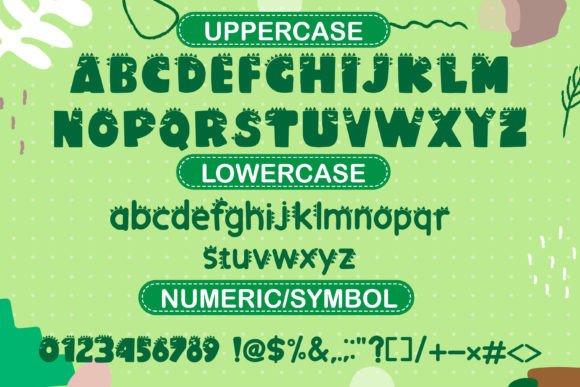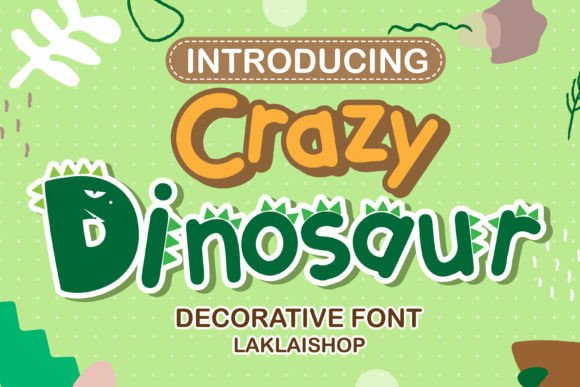
Crazy Dinosaur Font: Unleash Your Creativity with a Roar!
Are you ready to take your design projects to the next level with a dash of prehistoric fun? Look no further than the Crazy Dinosaur Font! This adventure-themed decorative font is packed with dinosaur elements that are sure to delight kids and adults alike. Whether you’re working on kids’ activities, school projects, or simply want to add a playful touch to your designs, Crazy Dinosaur Font is the perfect choice.
What Makes Crazy Dinosaur Font So Special?
Crazy Dinosaur Font is more than just a font – it’s an experience. Imagine being able to add a T-Rex, Triceratops, or Stegosaurus to your designs with just a few clicks. This font is carefully crafted to bring a fun and exciting feel to any project, making it ideal for:
- Kids’ party invitations and activity sheets
- School projects and presentations
- DIY craft projects and scrapbooking
- And so much more!
Key Features of Crazy Dinosaur Font
So, what sets Crazy Dinosaur Font apart from other fonts? Here are some of its key features:
- Unique Dinosaur Elements: The font includes a range of dinosaur-inspired elements, from cute and cartoonish to bold and adventurous.
- Decorative and Playful: Crazy Dinosaur Font is designed to add a touch of whimsy and fun to your designs.
- Easily Customizable: Use the font to create custom titles, headings, and text for your projects.
Tips and Ideas for Using Crazy Dinosaur Font
Need some inspiration for your designs? Here are some tips and ideas to get you started:
- Create a dino-themed party invitation with Crazy Dinosaur Font and dinosaur graphics.
- Design a fun and interactive kids’ activity sheet featuring dinosaur illustrations and Crazy Dinosaur Font.
- Make a custom school project with Crazy Dinosaur Font and dinosaur facts.
- Add a playful touch to your social media graphics with Crazy Dinosaur Font and dinosaur elements.
Whether you’re a seasoned designer or a crafty parent, Crazy Dinosaur Font is sure to inspire your creativity and take your designs to new heights. So go ahead, get creative, and let the Crazy Dinosaur Font unleash your inner child!